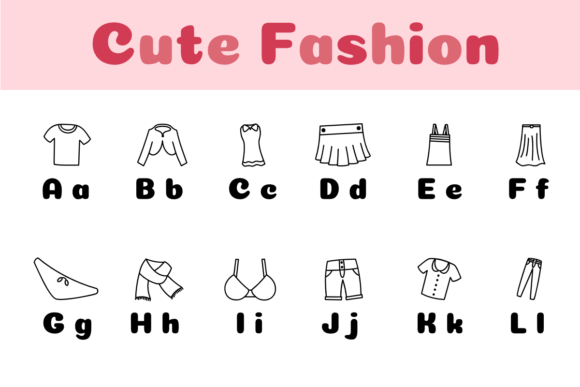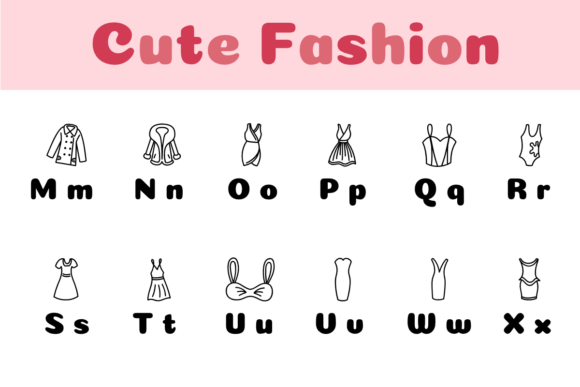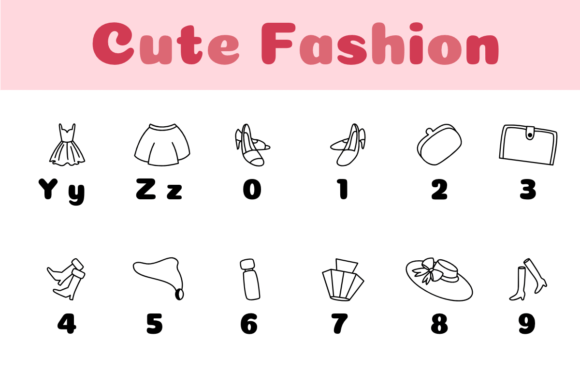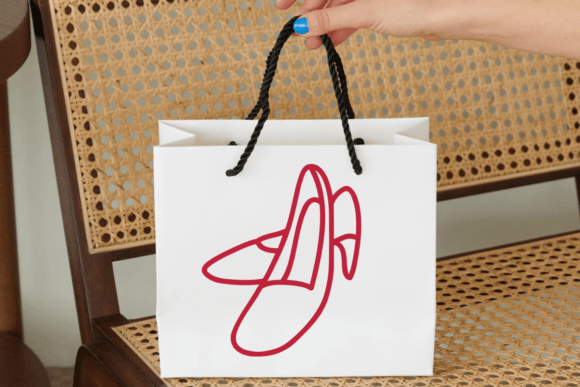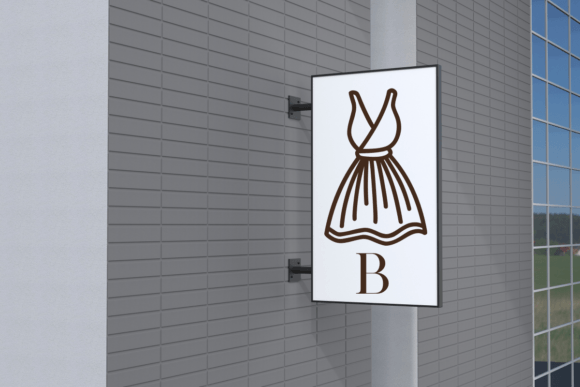
Introduction to Cute Fashion Font
“Cute Fashion” is a playful dingbat font filled with adorable fashion-themed symbols like dresses, shoes, and accessories.
It’s perfect for adding a fun touch to your designs, invitations, or social media posts with its charming and stylish icons .